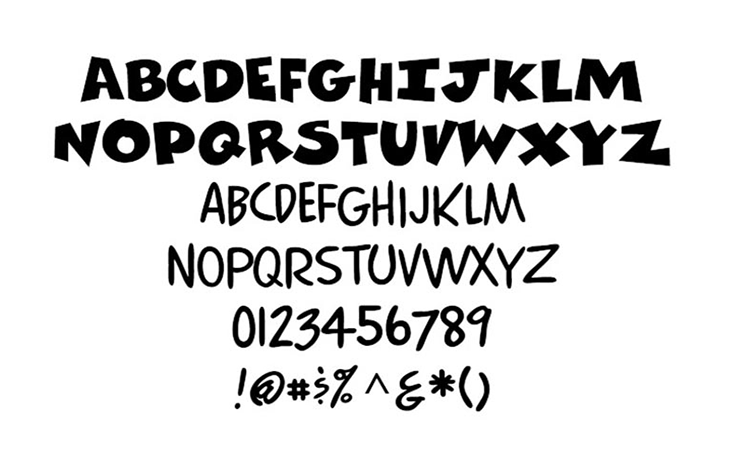
Comicscartoon Font is a fancy cartoon typeface that has a friendly tone and it comes with high readability. This fun friendly design can be used for long texts and the letters are clean enough.
Created by Pat Snyder, It is a Tennessee-based painter who creates abstract paintings using acrylic and mixed media on canvas and paper.
With a cool look, each letter is made with bold strokes just to give it a solid shape. In the use of all kinds of displays or printing. As its name suggests, it is made for use in comics and cartoons.
Therefore, it can easily work for these best projects. And for longer tasks, you can also use it in font pair conditioning. Because of the bold characters, it can easily be used for bold headings.
Let us see an example of this typeface which we have provided by showing all the characters.
With this unique look, it is useful for comic books, printing on cards, unique emblems, book covers, movie posters, game titling, product designs, posters, comic headlines, kids bags, stationery print, fashion magazines, etc.